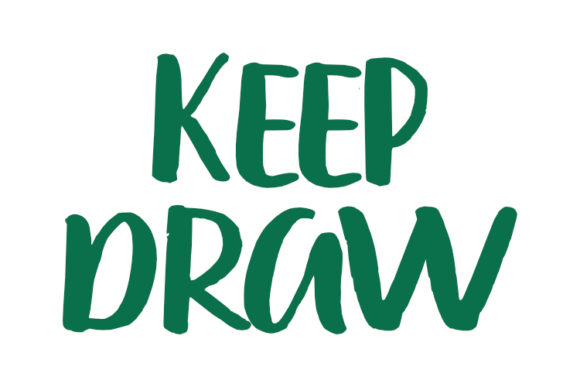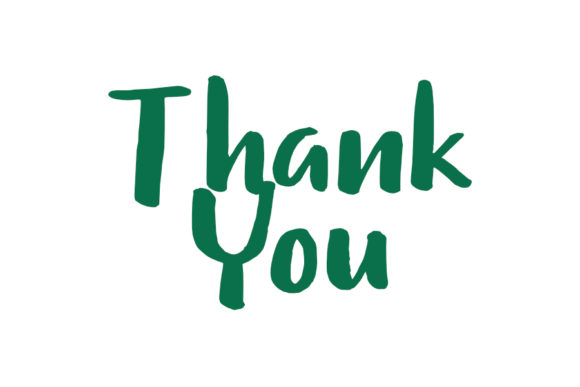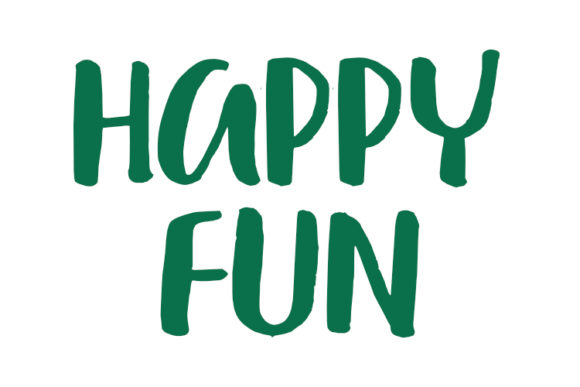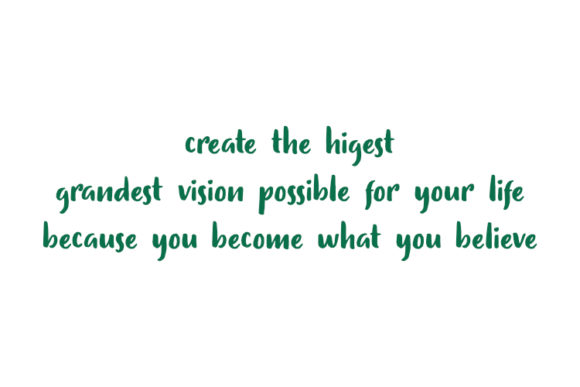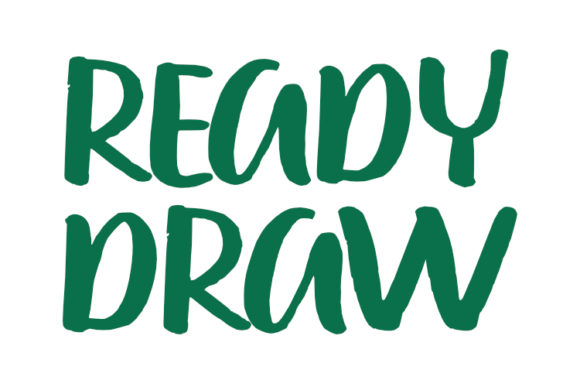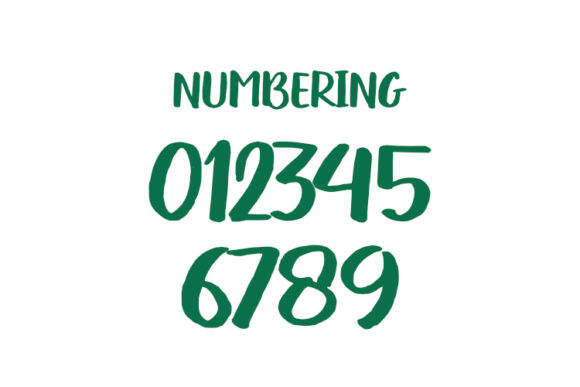
Unlock Your Creativity with Drawing Free Font: The Personal Touch Your Designs Need
Are you tired of using the same old fonts in your designs? Do you want to add a personal touch that sets your work apart from the rest? Look no further than the Drawing Free Font, a unique and authentic typeface inspired by the art of ink lettering. In this article, we’ll dive into the world of Drawing Free and explore how it can elevate your designs to the next level.
The Inspiration Behind Drawing Free
Drawing Free is a font that draws its inspiration from the traditional art of ink lettering. With its roots in hand-drawn lettering, this font carries a distinctly personal feel that’s hard to find in digital typefaces. The creators of Drawing Free wanted to capture the essence of hand-written letters, with all their imperfections and quirks, and translate it into a digital font that would bring a human touch to any design.
The Benefits of Using Drawing Free
So, what makes Drawing Free so special? Here are just a few benefits of using this unique font in your designs:
- Authentic look and feel: Drawing Free has a distinctly personal feel that’s reminiscent of hand-drawn lettering. This makes it perfect for designs that need a human touch.
- Versatility: Despite its personal feel, Drawing Free is a versatile font that can be used in a wide range of designs, from logos and branding to posters and social media graphics.
- Easy to read: Despite its hand-drawn inspiration, Drawing Free is surprisingly easy to read, making it perfect for designs that need to communicate a message.
How to Use Drawing Free in Your Designs
So, how can you use Drawing Free in your designs? Here are a few ideas to get you started:
- Logos and branding: Use Drawing Free to create a unique and memorable logo that sets your brand apart from the competition.
- Posters and flyers: Add a personal touch to your posters and flyers with Drawing Free, perfect for promoting events, products, or services.
- Social media graphics: Use Drawing Free to create eye-catching social media graphics that stand out in crowded feeds.
- Handmade crafts: Drawing Free is also perfect for crafters who want to add a personal touch to their handmade projects, such as scrapbooking, card-making, or journaling.
Tips for Getting the Most Out of Drawing Free
Here are a few tips for getting the most out of Drawing Free:
- Experiment with different sizes and colors: Don’t be afraid to experiment with different sizes and colors to find the perfect combination for your design.
- Pair with other fonts: Try pairing Drawing Free with other fonts to create a unique and interesting contrast.
- Use it sparingly: While Drawing Free is a beautiful font, it can be overwhelming if used too much. Use it sparingly to create a focal point in your design.
In conclusion, Drawing Free is a unique and authentic font that’s perfect for designers and crafters who want to add a personal touch to their work. With its inspiration from ink lettering and distinctly personal feel, Drawing Free is sure to turn any design idea into an authentic work of art. So why not give it a try and see the difference it can make in your designs?